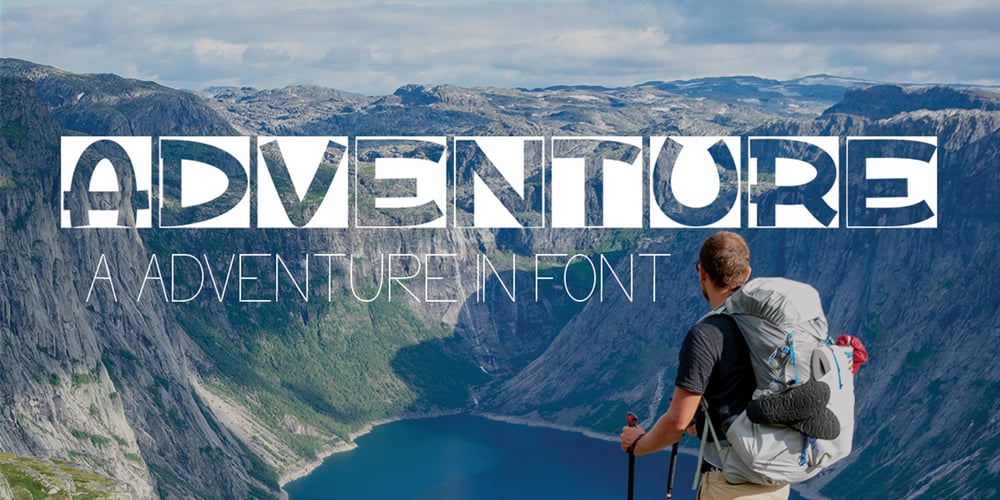
Adventure Handwritten Font Family was designed by Teuku Saifullah and published by Shape Studio. Adventure Handwritten contains 1 styles and family package options. These hand written letters make for such fun designs! Give you designs that stand out feel with these fun, unique letters!With clean lines for crafting, you can do so much with these!